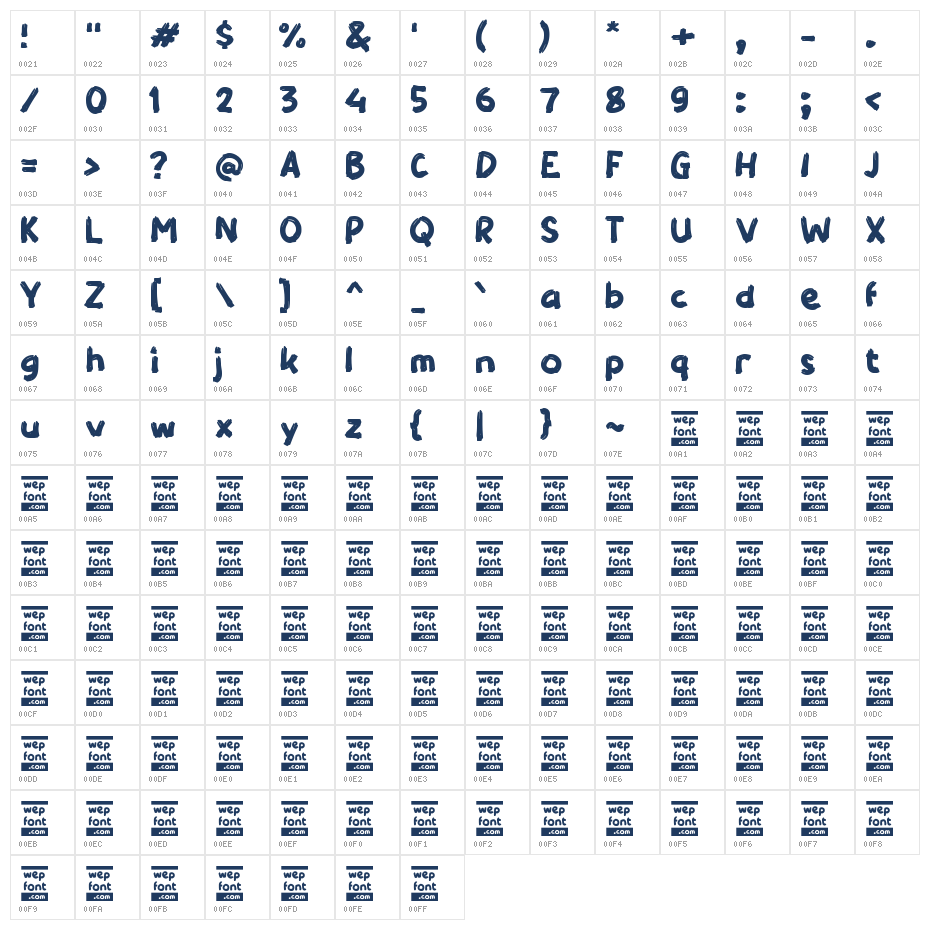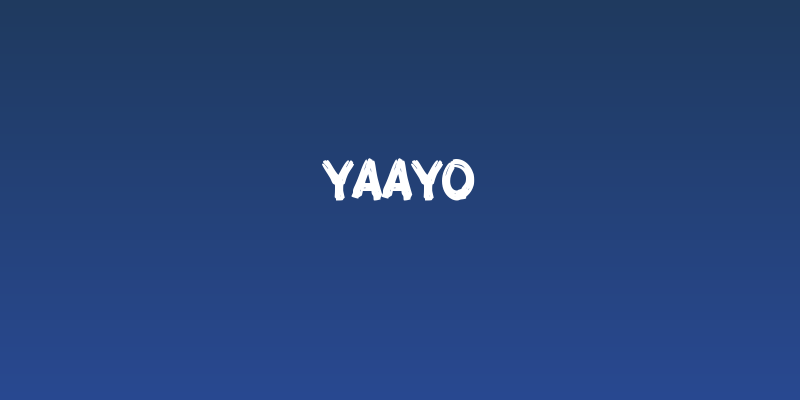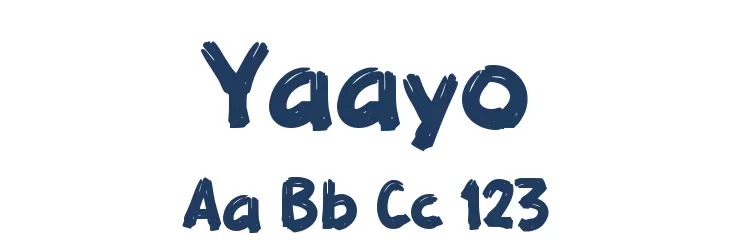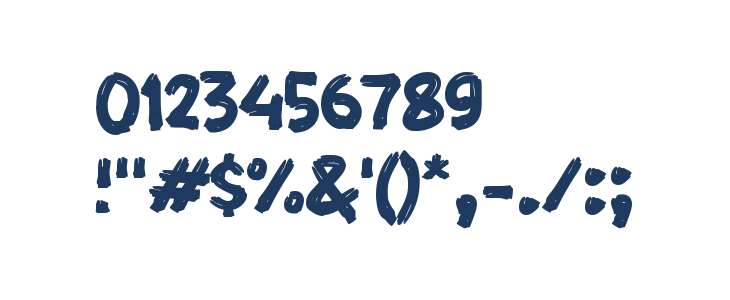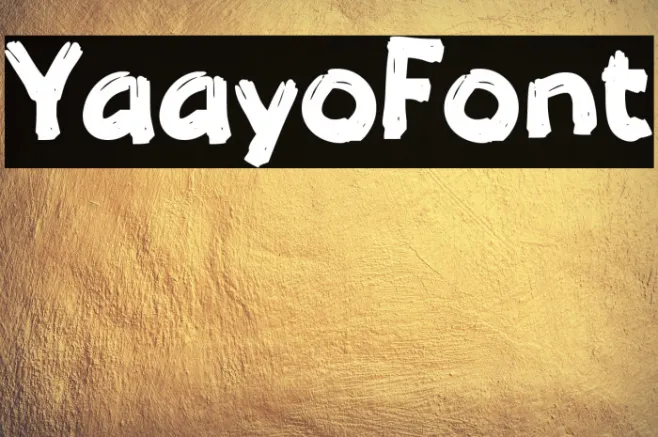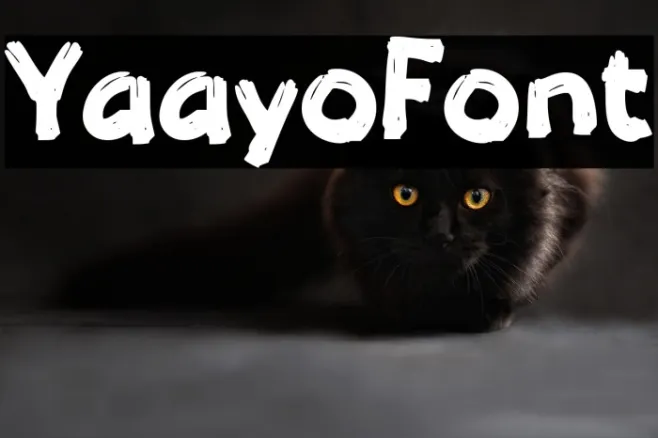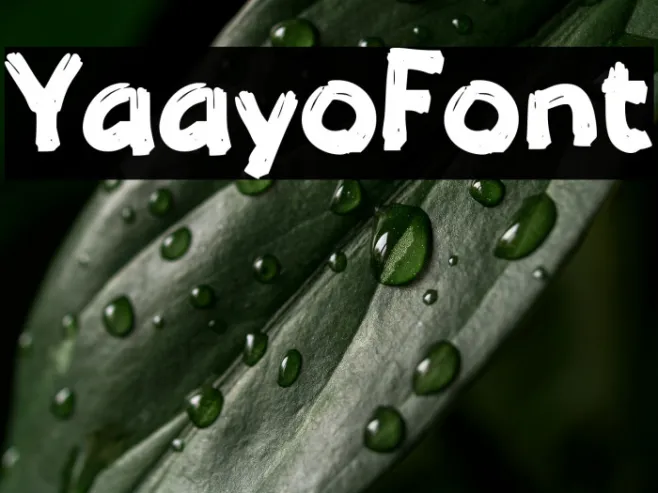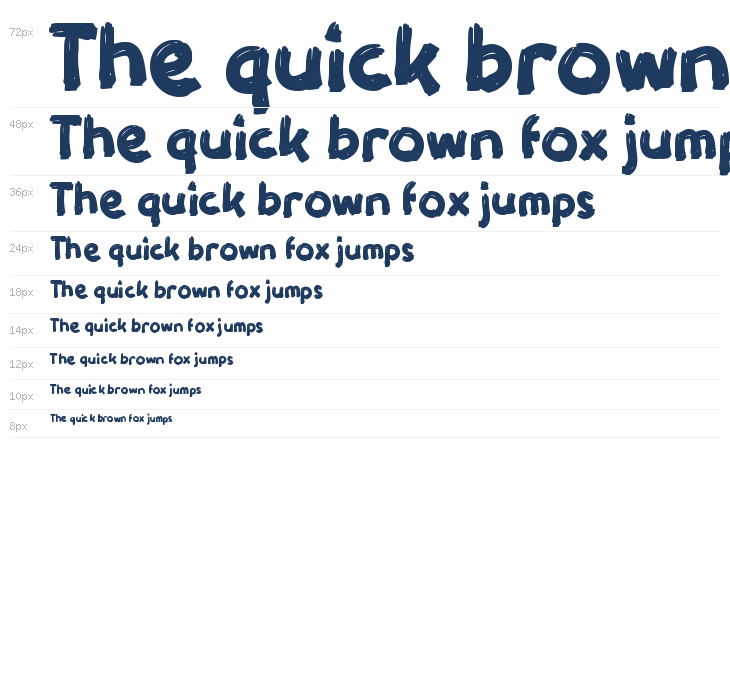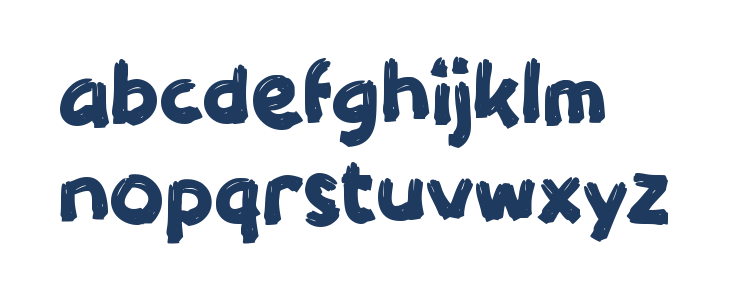
Yaayo Font
Yaayo Description
A bold, brush-stroke style font with a casual, handwritten appearance. The characters are thick, textured, and slightly irregular, giving it an energetic and playful feel.
YAAYO UPPERCASE
YAAYO LOWERCASE
YAAYO OTHER CHARS
| Overall Style | Casual, Handwritten, Artistic |
| Use Case | Headlines, Logos, Posters, Creative branding |